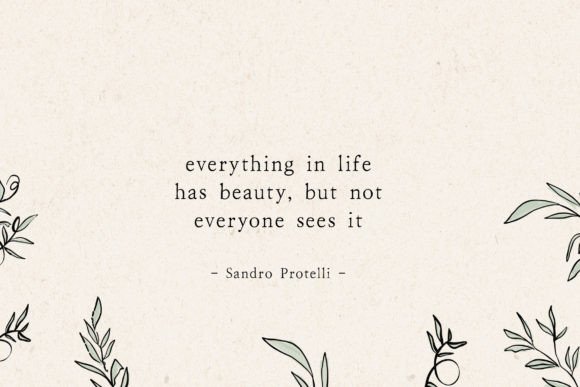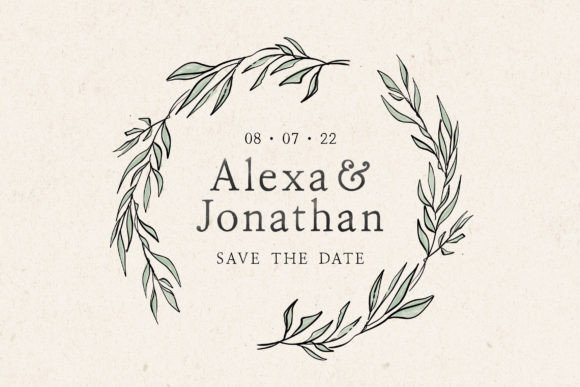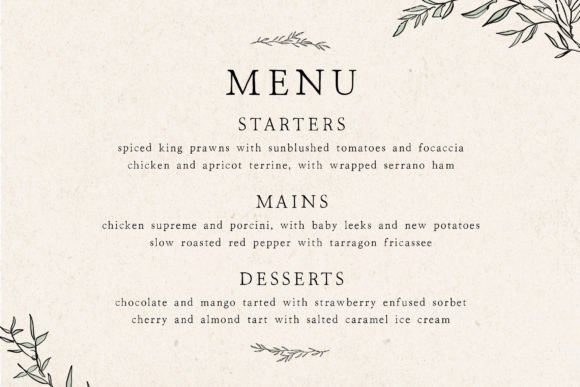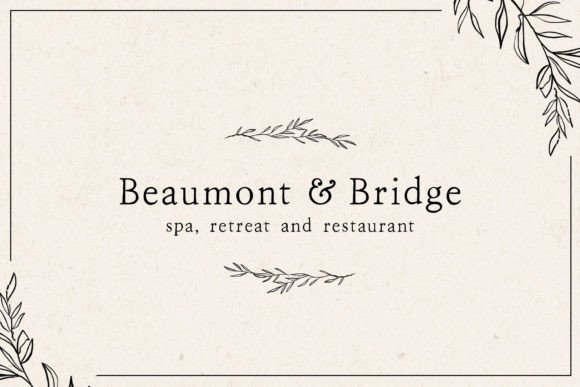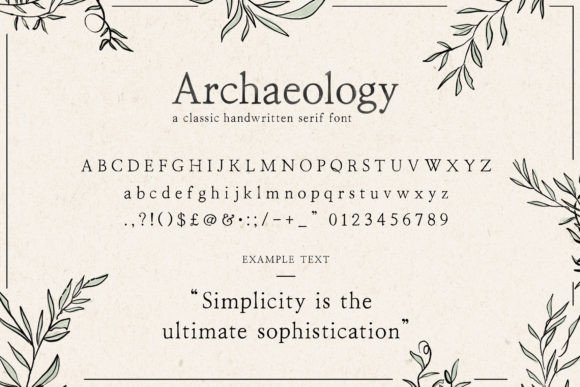
Introduction to Archaeology Font
Archaeology is an authentic serif font that can help you add a personal note to any design.
Try this beautiful typeface on letters, name tags, business cards, invitations, or anything exquisite .